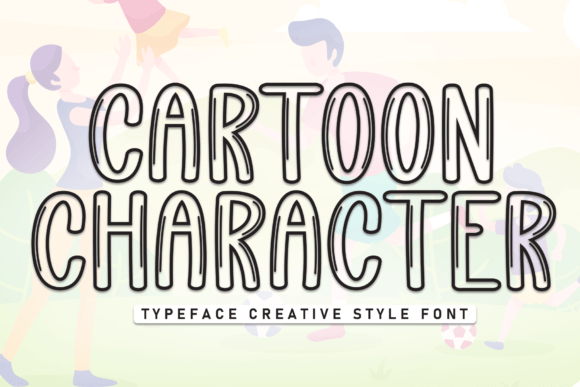
The Ultimate Guide to Cartoon Character Font: A Designer’s Best Friend
I’ll never forget the time I was working on a project for a children’s birthday party invitation. I had the design concept all sorted out, but I was stuck on finding the perfect font. The invitation needed to be fun, playful, and appealing to kids. That’s when I stumbled upon the Cartoon Character font. It was like a breath of fresh air! The natural, handwritten style and unique flair of this font instantly captured the playful essence I was looking for. In this article, I’ll share my experience with the Cartoon Character font, its features, and how you can make the most of it in your designs.
A Personal Review: What I Love About Cartoon Character Font
The Cartoon Character font has become a staple in my design toolkit, and for good reason. Here are some things I love about it:
- ✨ Sweet and Friendly Style: The font’s natural, handwritten look is perfect for creating a warm and inviting atmosphere in your designs.
- ✅ Versatility: Its unique style makes it incredibly fitting for a wide range of designs, from kids’ party invitations to educational materials and even branding for a children’s product.
- 🌈 Colorful Possibilities: The font’s playful nature allows you to experiment with various colors and textures, adding an extra layer of creativity to your designs.
While the Cartoon Character font is amazing, there are a few things to keep in mind:
- 🤔 Legibility at Small Sizes: Like many handwritten fonts, Cartoon Character can become a bit tricky to read at very small sizes. It’s best used at larger sizes or for headlines.
- ⚠️ Overuse: While the font is incredibly versatile, using it excessively can make your design look cluttered. Balance is key.
One of the exciting aspects of the Cartoon Character font is its support for OpenType features and glyphs. These features allow you to:
- Access stylistic alternates for varied letterforms.
- Use ligatures for a more natural, handwritten feel.
- Explore different glyphs for added creativity.
The Cartoon Character font was inspired by the classic cartoons of the 80s and 90s. The designer aimed to capture the playful, whimsical essence of these beloved characters in a font that could be used by designers and crafters alike. The result is a font that’s both nostalgic and fresh, perfect for bringing a smile to your audience’s faces.
| Can I use Cartoon Character font for my branding? | Absolutely! The font’s unique style makes it an excellent choice for branding, especially for businesses targeting a younger audience or those in creative industries. |
| Does Cartoon Character font support OpenType features? | Yes, Cartoon Character font supports OpenType features, including stylistic alternates, ligatures, and glyphs. |
| Is Cartoon Character font easy to read? | Cartoon Character font is generally easy to read, especially at larger sizes. However, like many handwritten fonts, it may become less legible at very small sizes. |